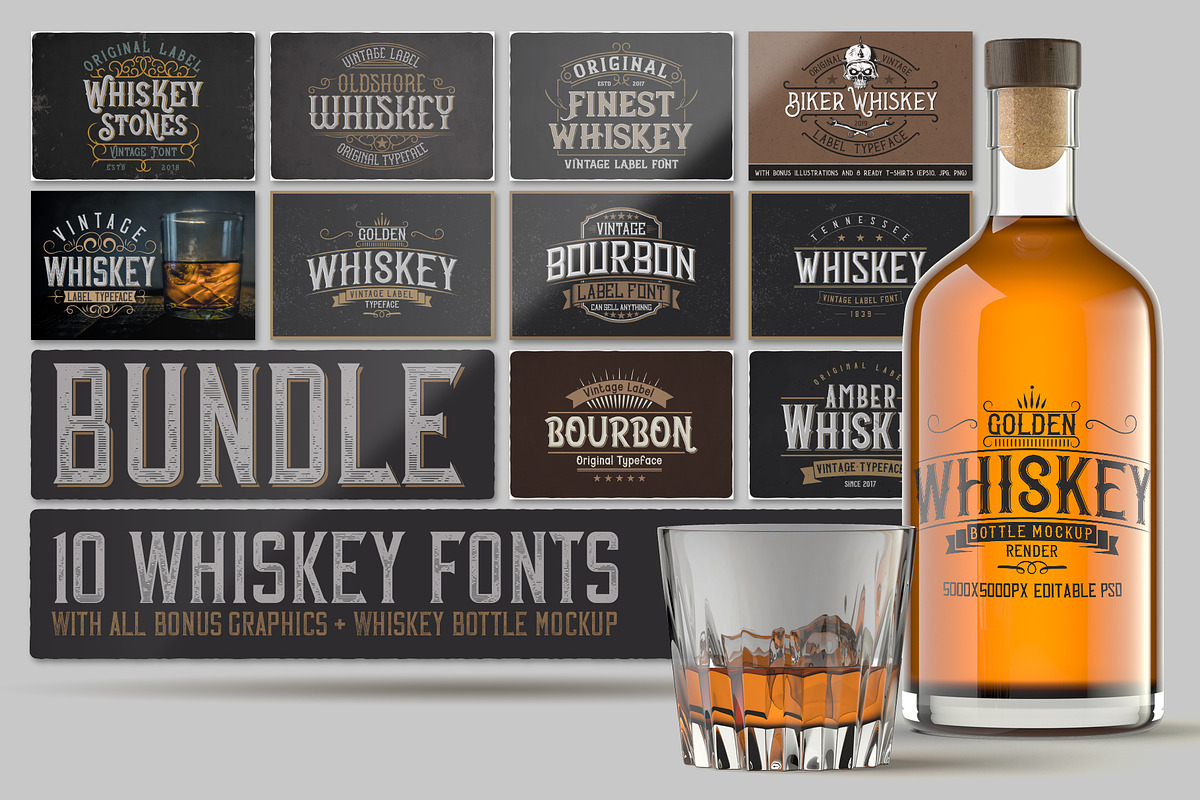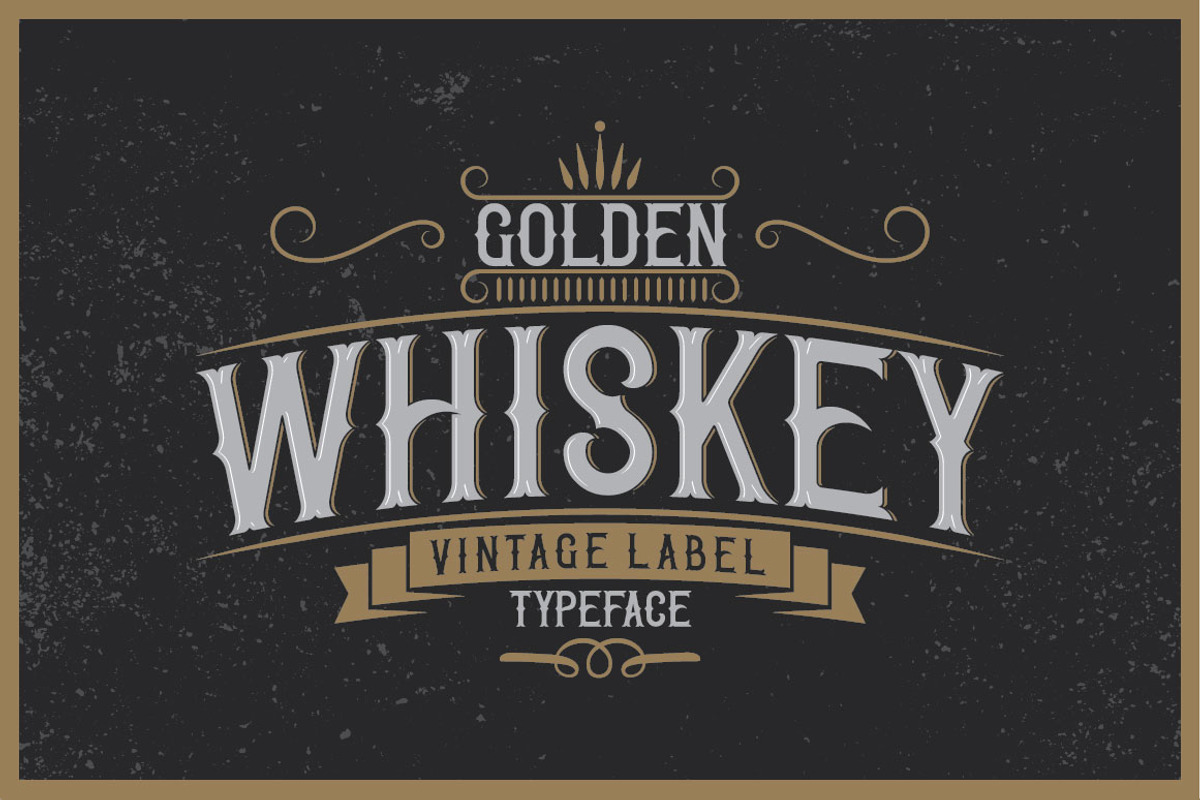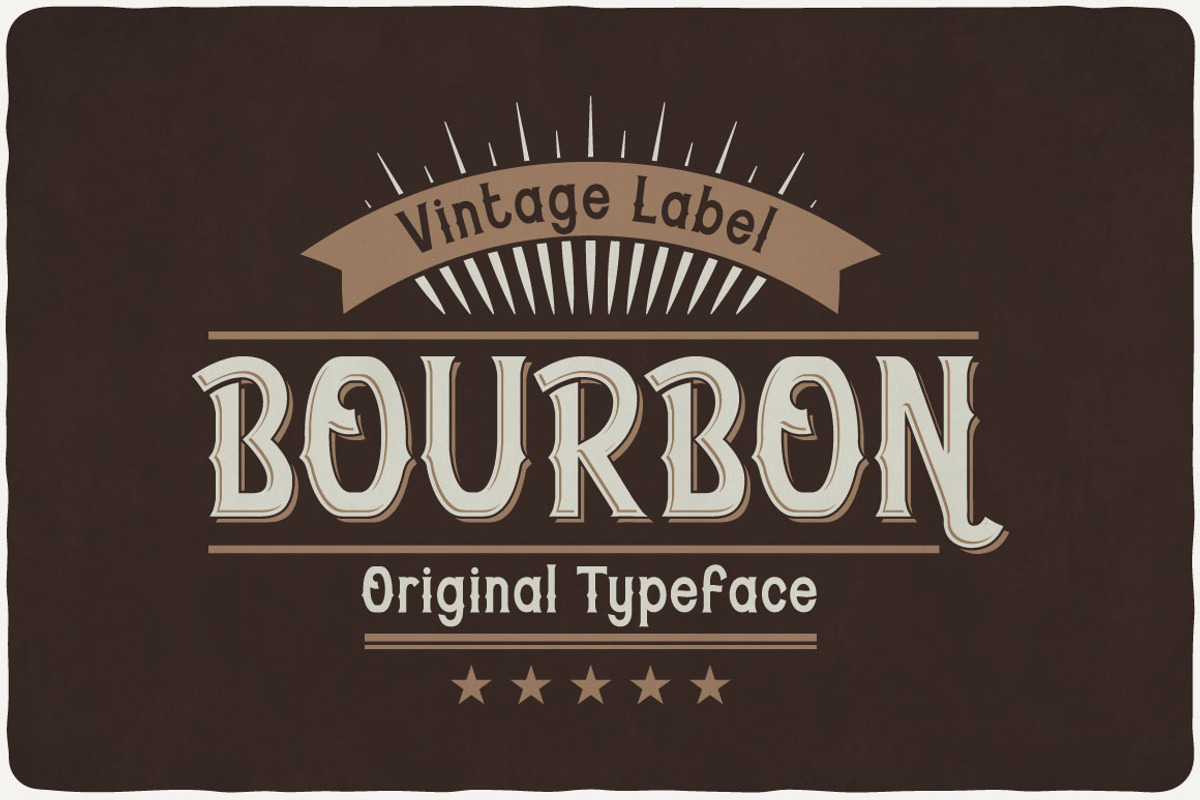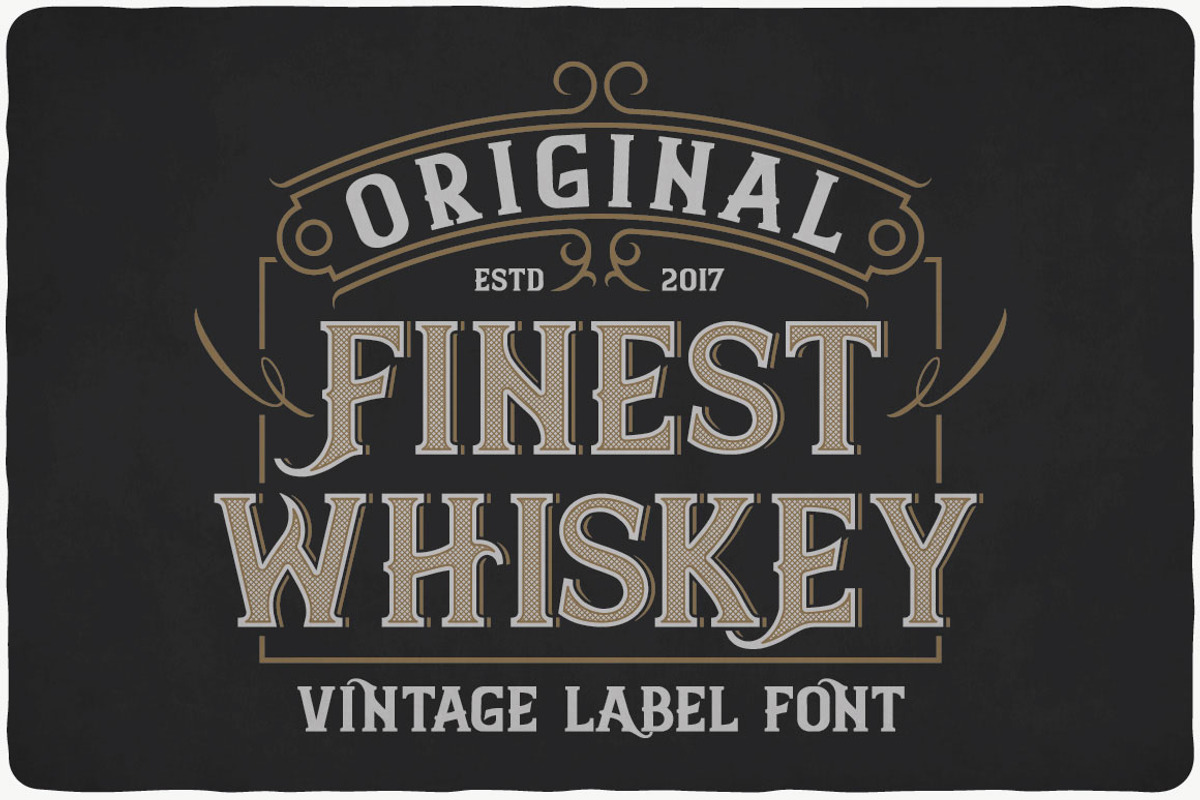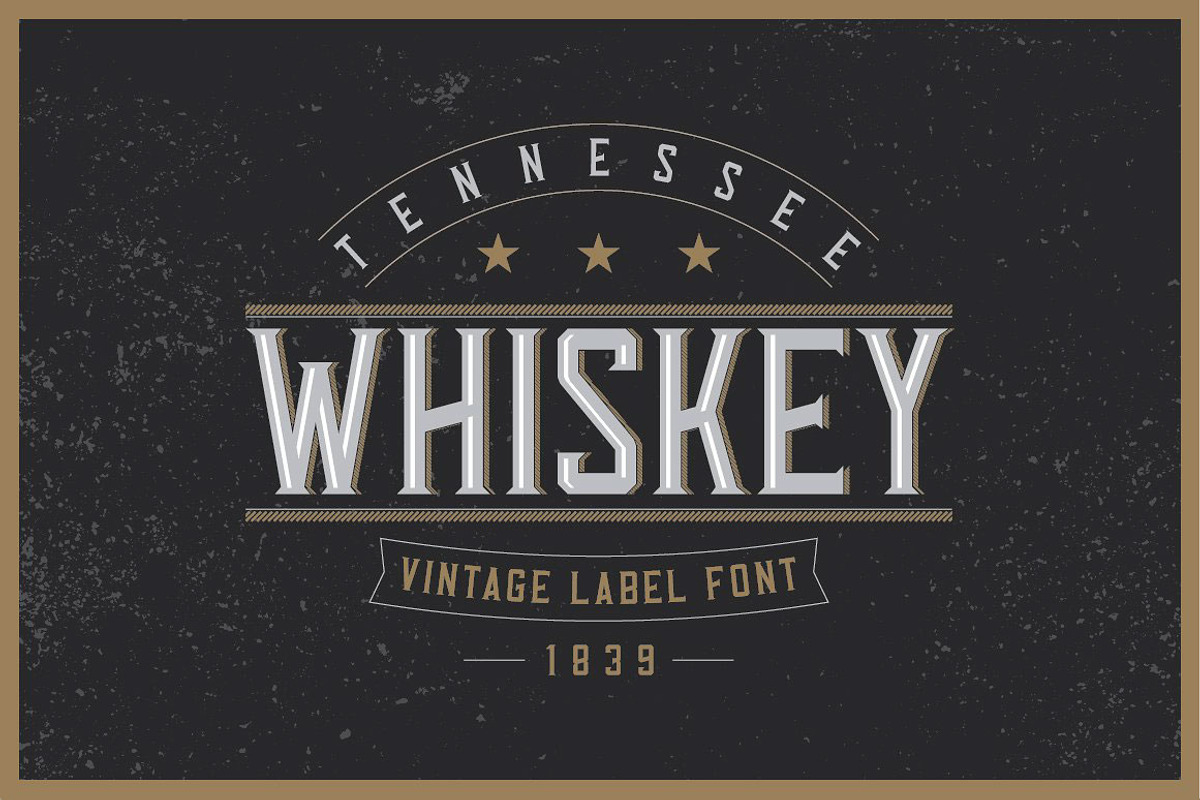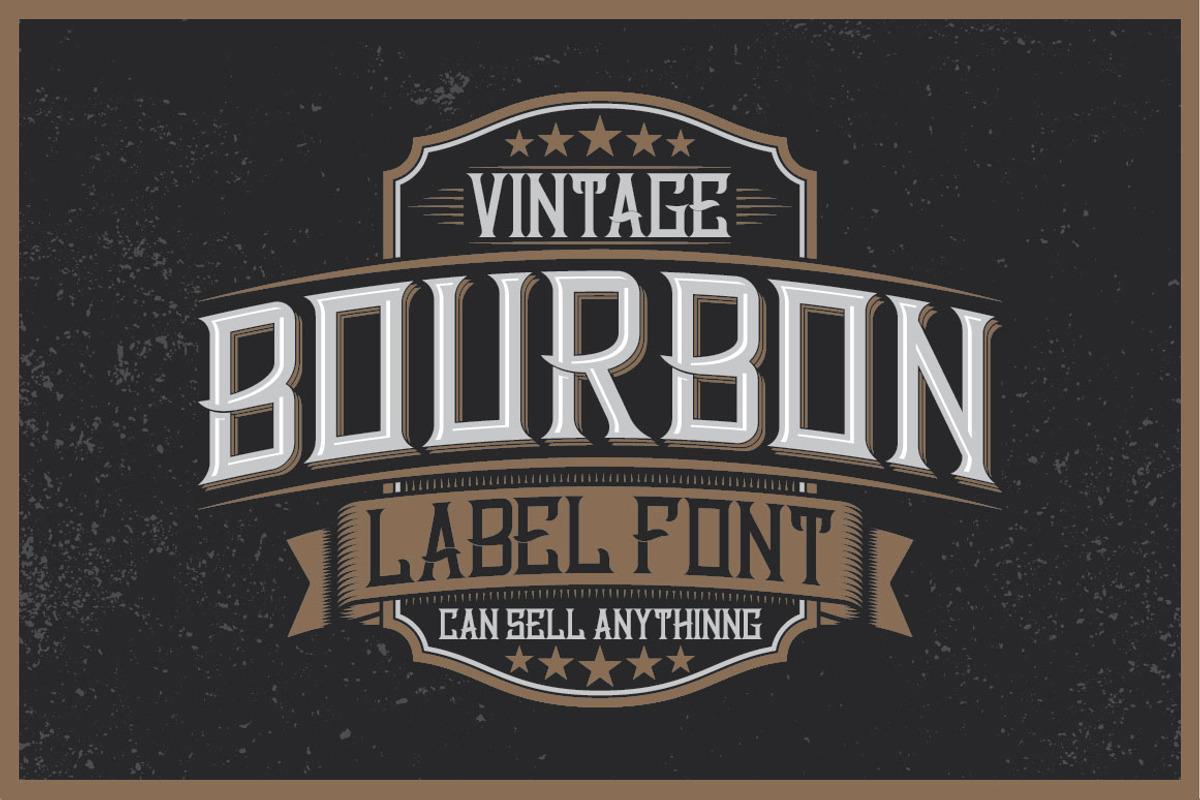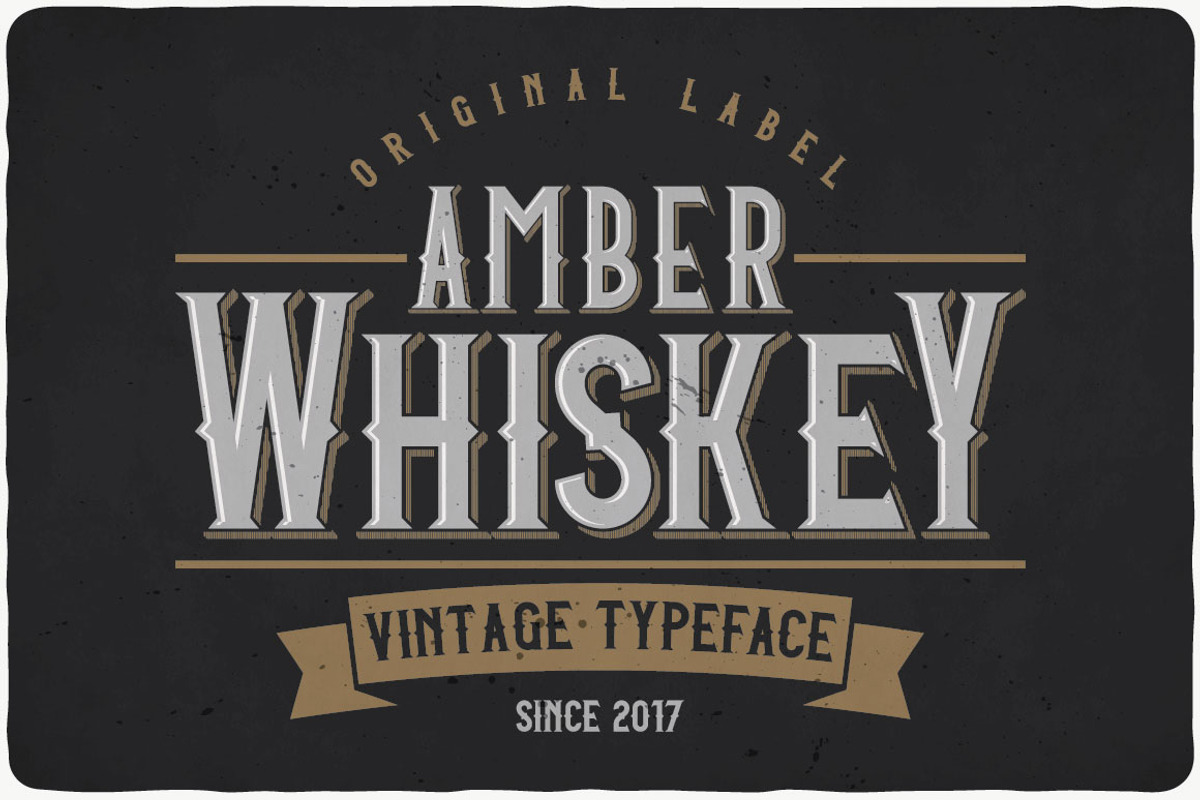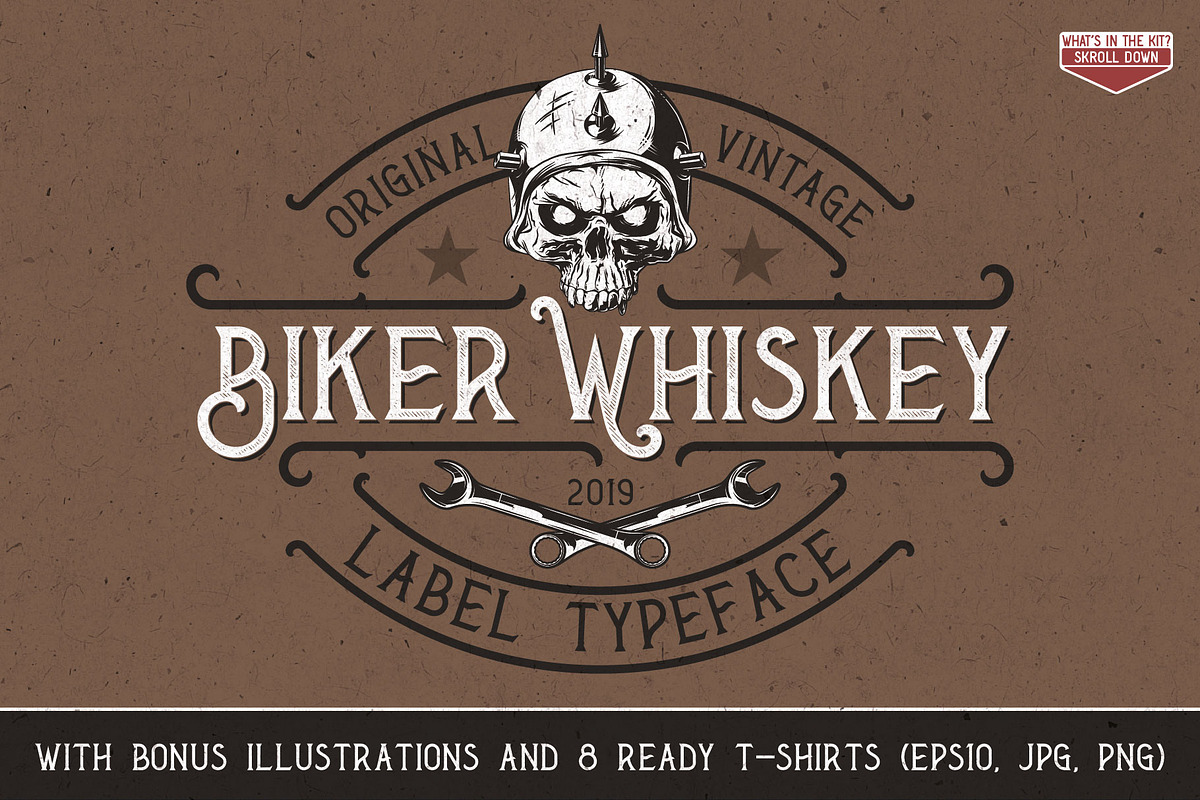
Whiskey Fonts Bundle
Introducing Whiskey Fonts Bundle! This is special bundle with 10 wiskey font families (67 different font files). All bonus graphics from separate font families in complect. Also in complect a special bonus - editable Whiskey Bottle PSD mockup (alone bottle and bottle with a glass).
- Biker Whiskey Golden Whiskey Vintage Bourbon Amber Whiskey Vintage Whiskey Stones Finest Whiskey Bourbon Tenneessee Whiskey Oldshore
Whiskey Fonts Bundle by VozzyStock fits naturally into Branding, posters, packaging, typography.